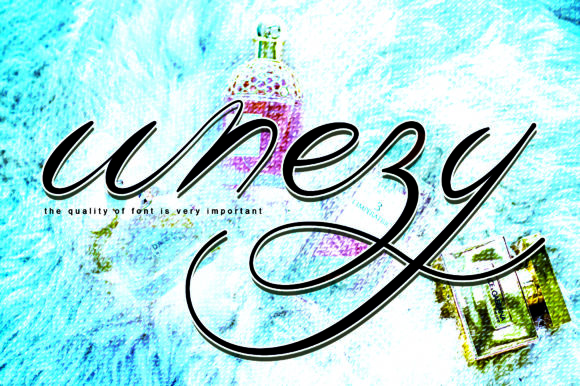
About Wnezy Font
Wnezy is an incredibly distinct, delicate and timeless handwritten font. It looks stunning on wedding invitations, thank you cards, quotes, greeting cards, logos, business cards and every other design which needs a handwritten touch.